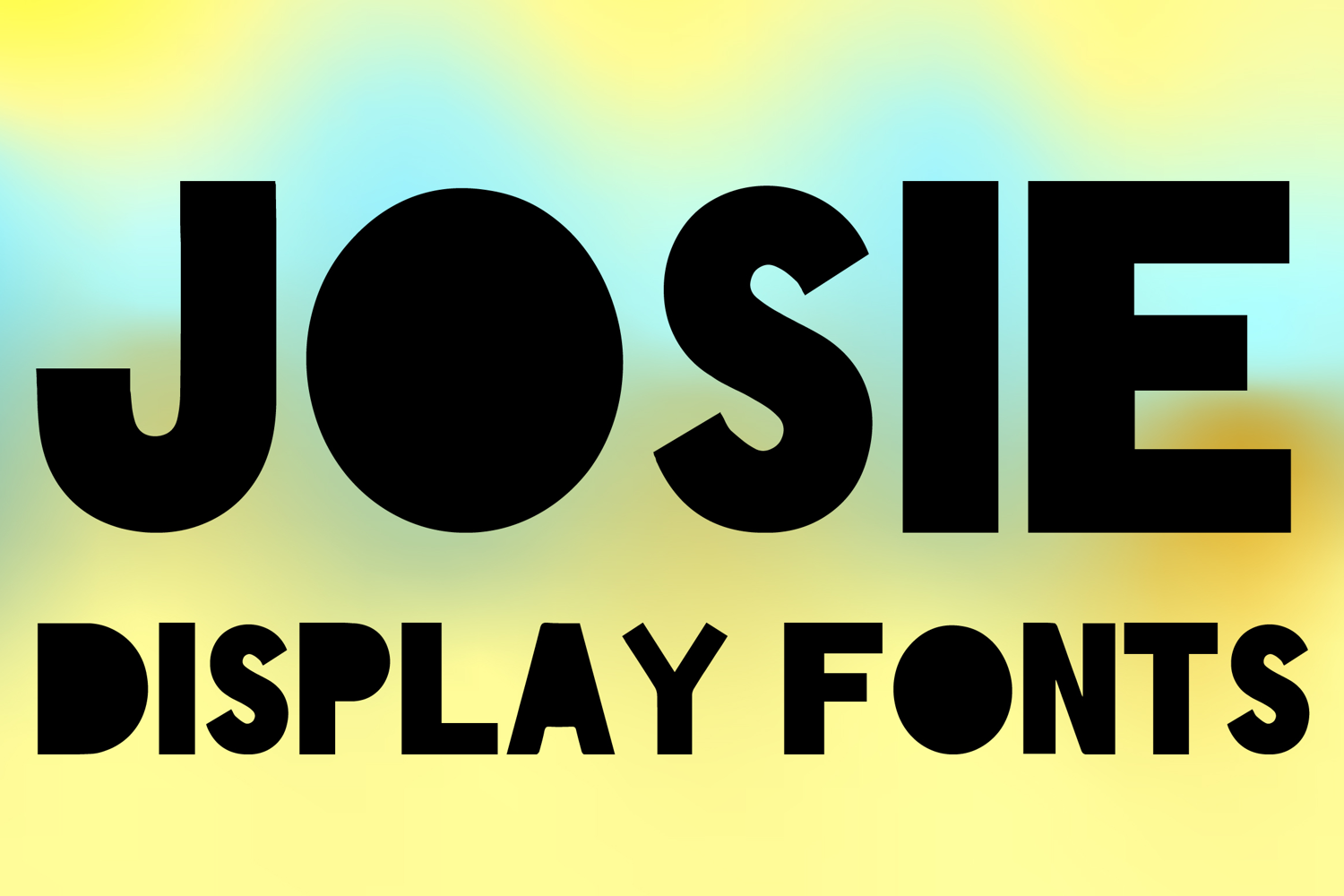
JOSIE
JOSIE-Regular
JOSIE is a bold modern display font with a strong geometric style and clean contemporary character. Its uppercase letterforms feature thick solid strokes, smooth rounded curves, and a striking block-like structure that creates a confident, playful, and eye-catching look. Designed with uppercase letters A–Z and numbers 0–9, JOSIE is perfect for branding, posters, packaging, logos, headlines, social media graphics, and creative projects that need a bold and memorable statement.